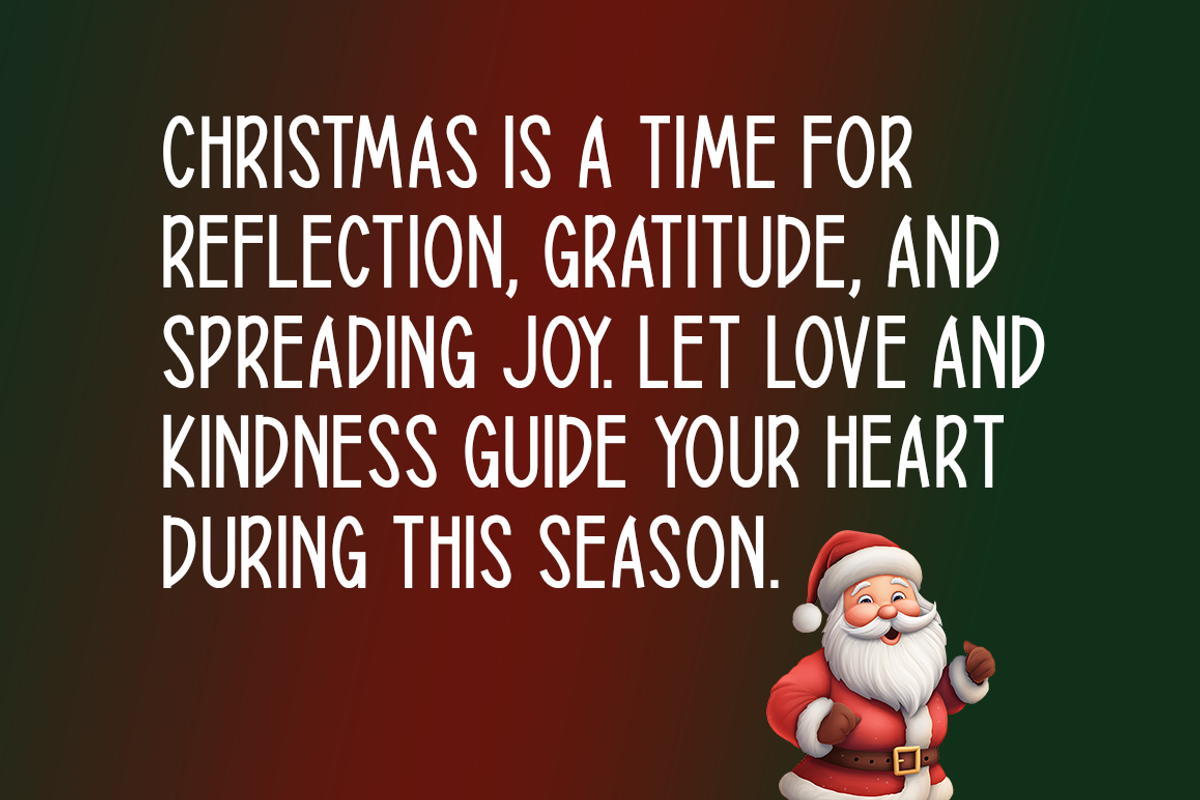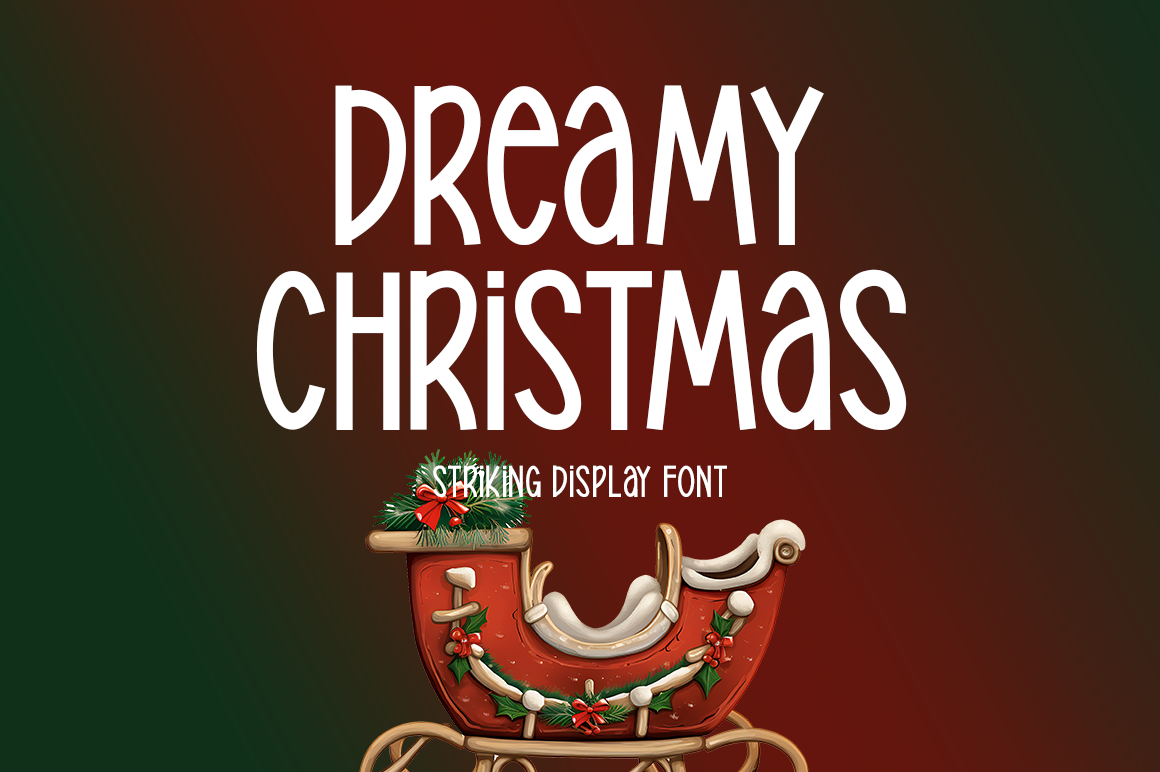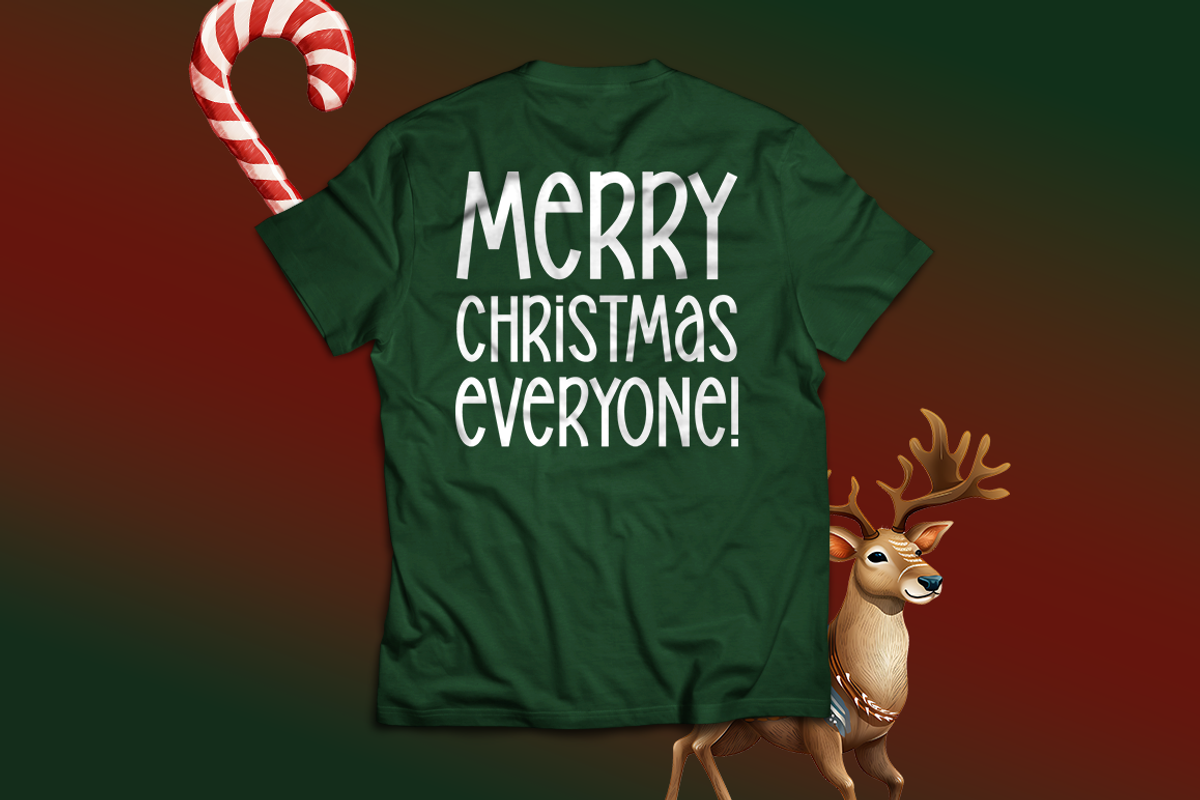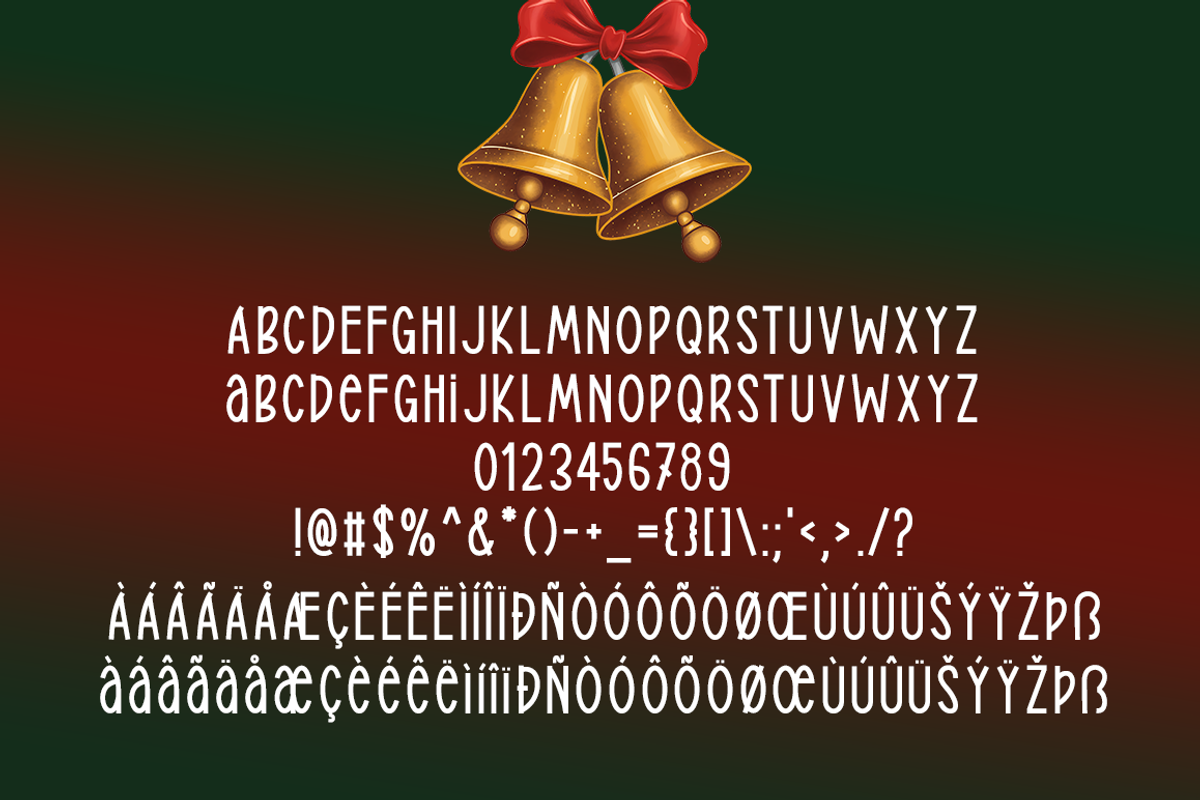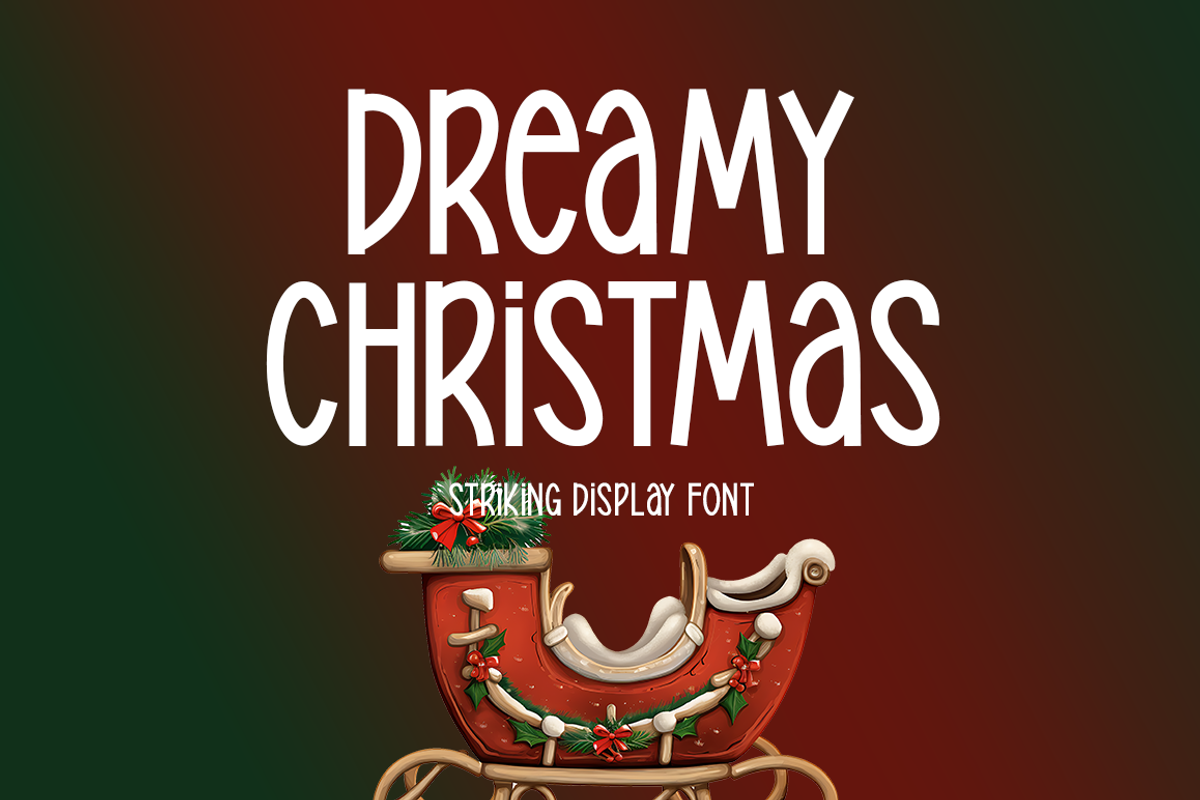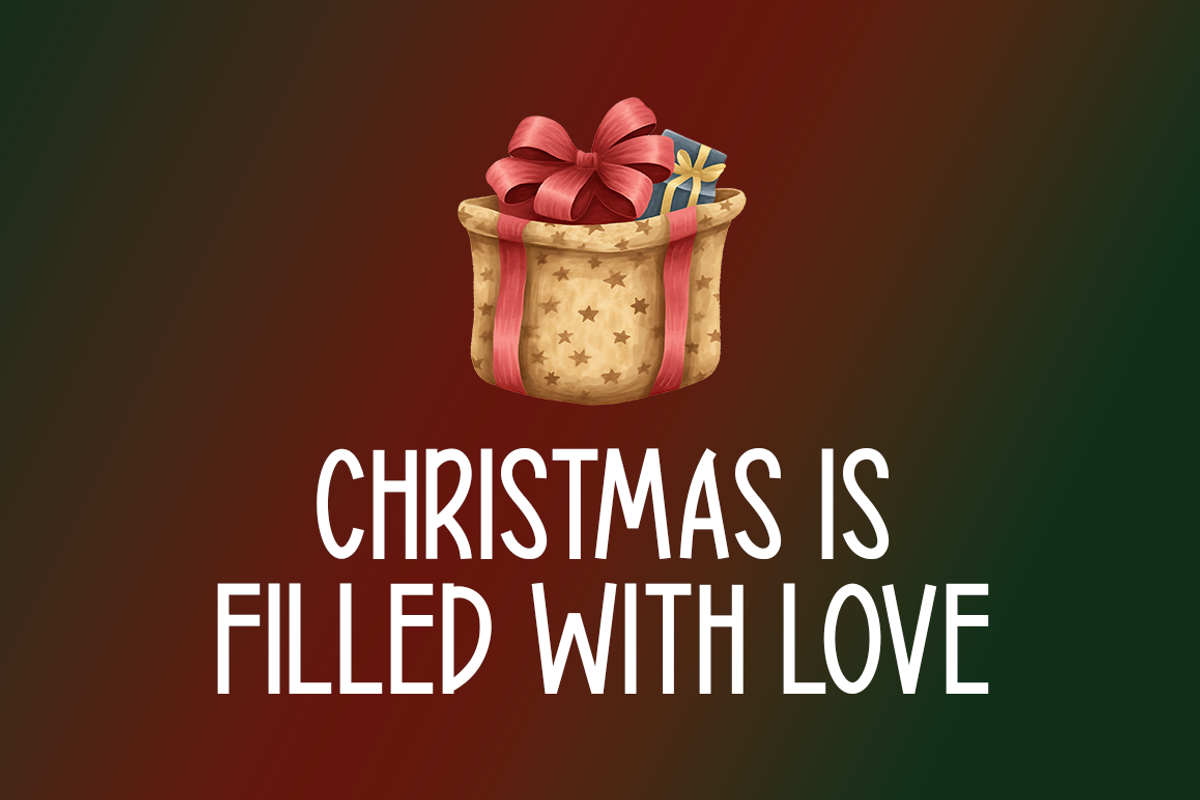
Dreamy Christmas Typeface
Introducing Dreamy Christmas!
Dreamy Christmas is a beautiful display font that radiates warmth, joy, and the delightful charm of the holiday season. With its refined yet playful character, it’s ideal for a variety of creative applications, whether you’re designing holiday cards, logos, t-shirts, print materials, or digital content. This versatile font also shines in music covers, flyers, posters, website headers, and image sliders, adding a whimsical touch to any project. Its fluid, elegant style makes it a perfect fit for capturing the festive spirit and creating designs that feel personal, welcoming, and full of holiday cheer.
Includes a range of multilingual support